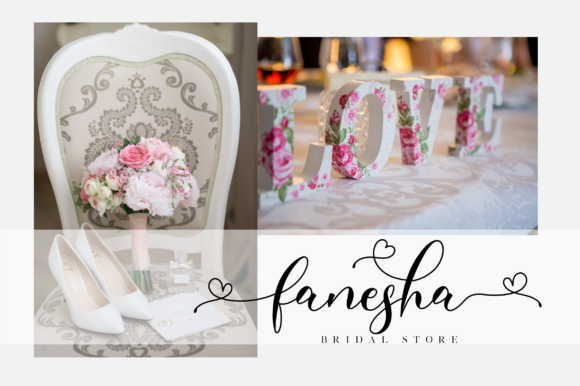
Freelove Font
db-ku.com - Script & Handwritten -- Freelove is a beautiful and charming font script that will add a unique flavor to your next craft design.